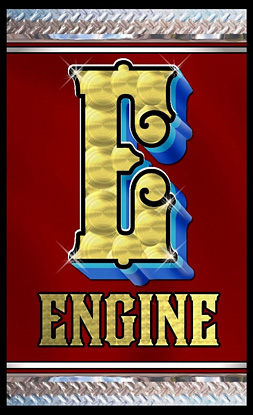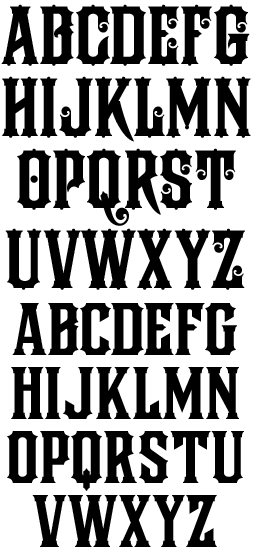
LHF Fire House This style was actually inspired by some old stock certificates Tom had collected. It's a very versatile font-- allowing for some horizontal stretching. Fits almost any space.